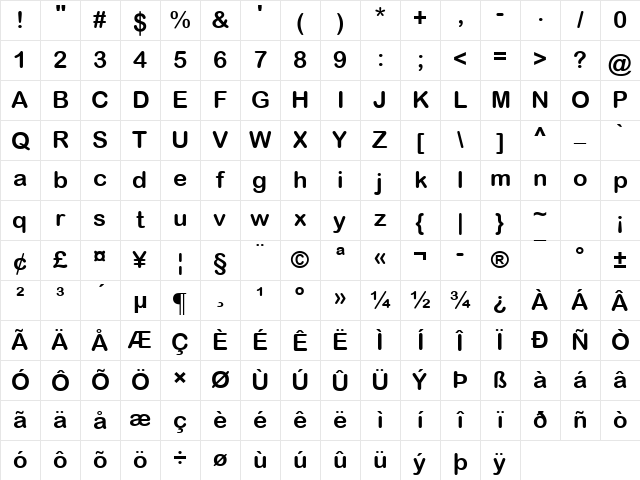
Arial Rounded MT Bold Bold Free Font
Arial Rounded MT Bold Bold
Arial Rounded MT Bold Family
Complete Arial Rounded MT Bold Bold glyph index. Displaying only characters natively supported by Arial Rounded MT Bold Bold font.
Design Context for Arial Rounded MT Bold
Arial Rounded MT Bold softens its letterforms with rounded terminals, giving it an approachable, friendly quality that works well in consumer-facing and digital contexts. Its bold stroke weight gives it real presence on the page.
Font Pairing: Pairs well with a rounded or humanist sans for body copy, maintaining the friendly tone without relying on Arial Rounded MT Bold to carry extended reading.
Pro Tip: Use Arial Rounded MT Bold for UI elements, app interfaces, and anywhere a friendly, approachable tone needs to be maintained without sacrificing clarity.